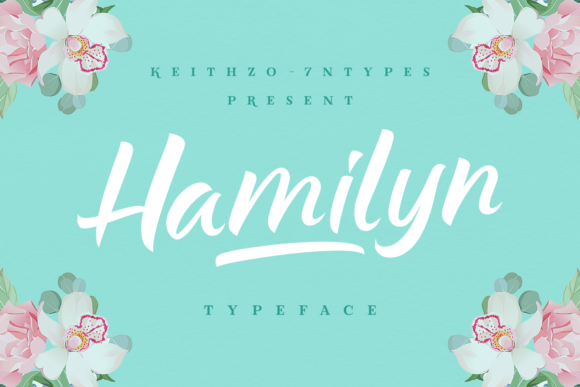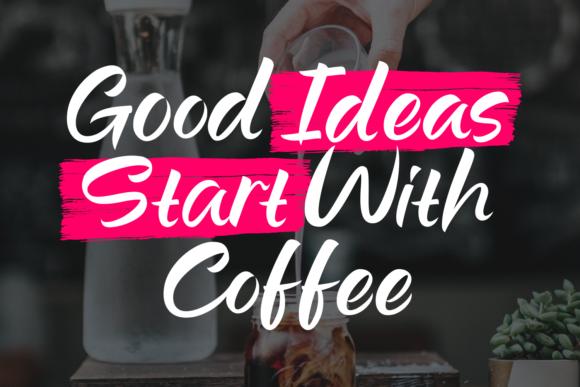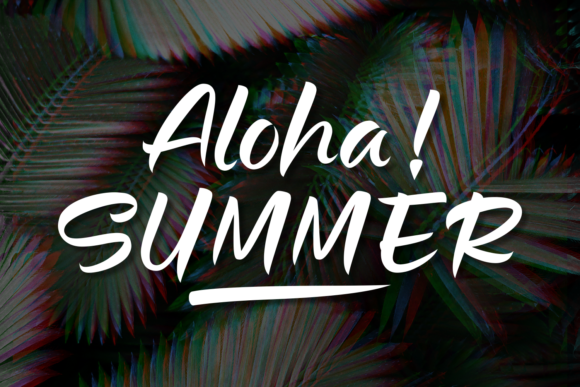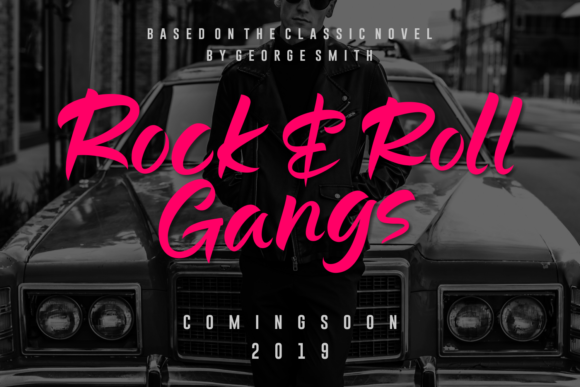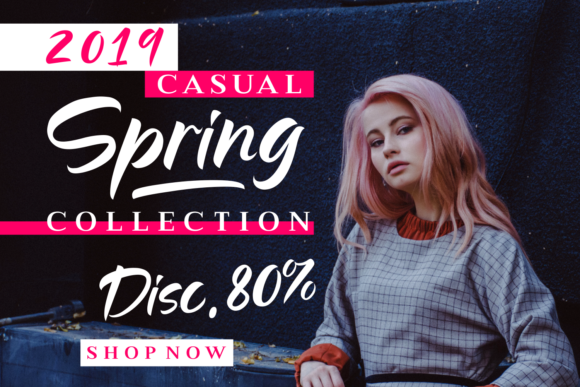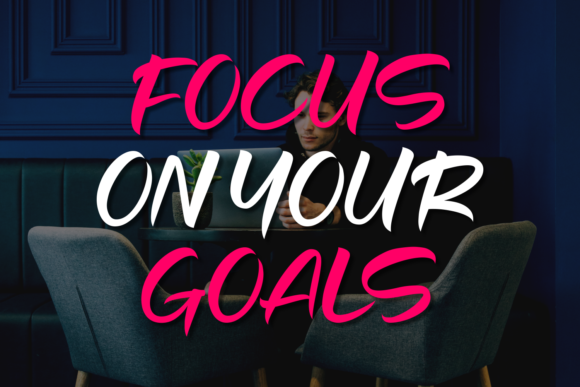
Hamilyn Font
About Hamilyn Font
Hamilyn is a stunning fresh font. It is designed as a solid, clean brush font making it suitable for summer-style designs in a clean, neat way.